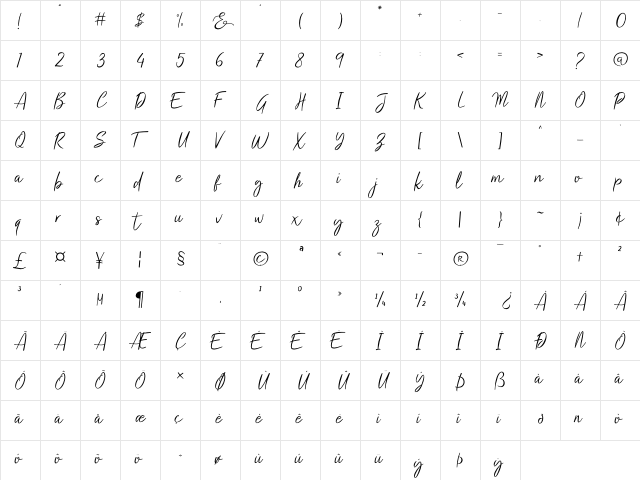
Salty Malthy Regular
Design Context for Salty Malthy Typeface
Salty Malthy is a composed and adaptable typeface that performs quietly and consistently across a wide range of design contexts.